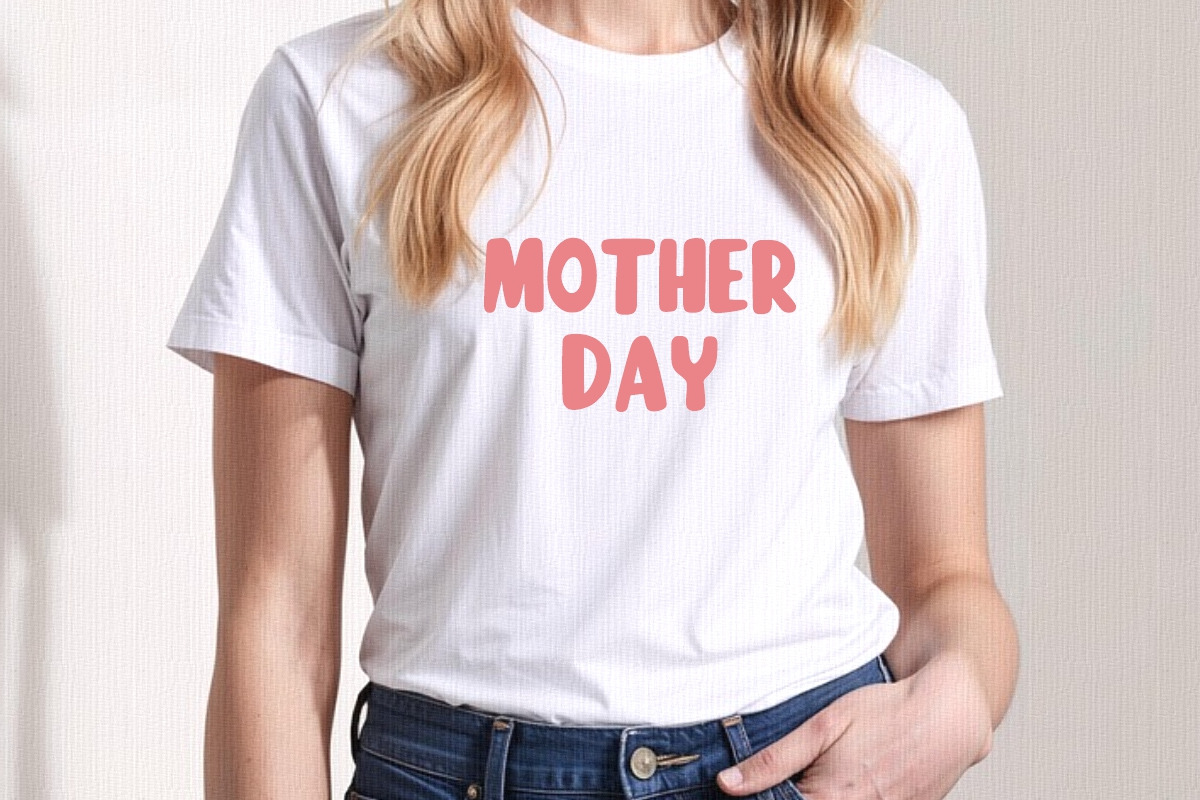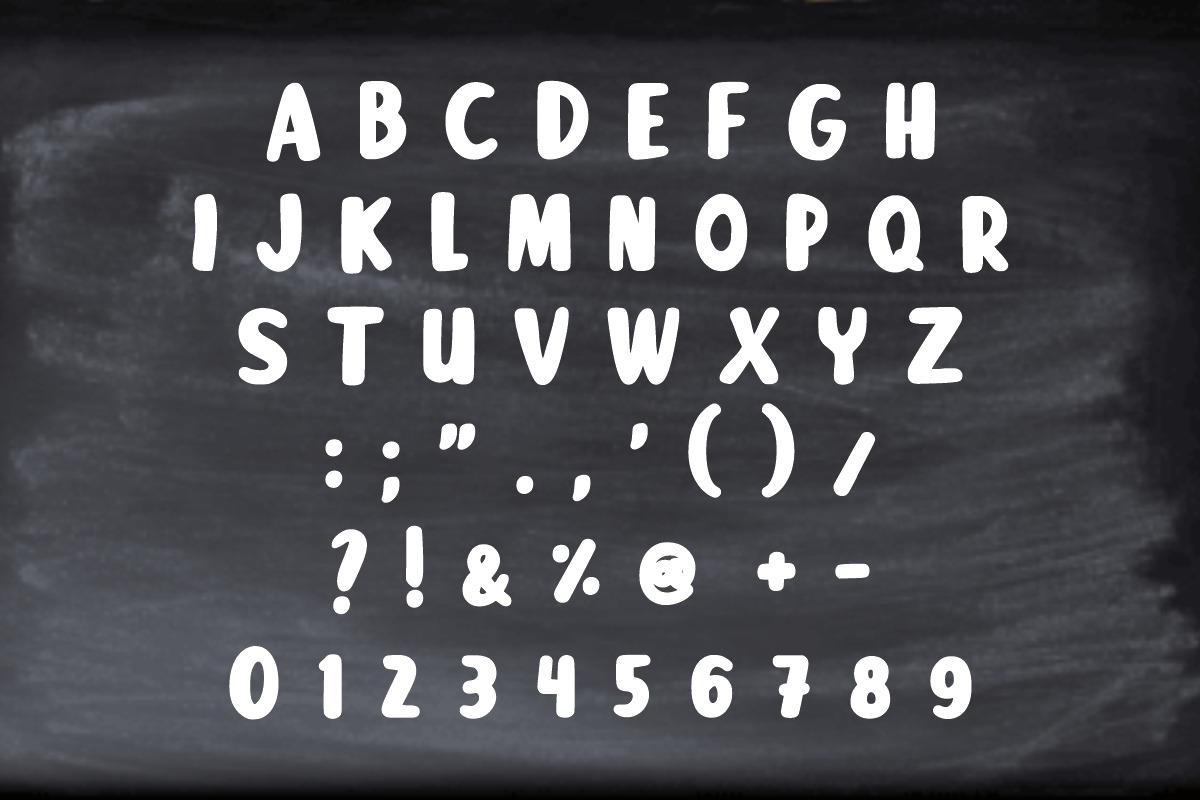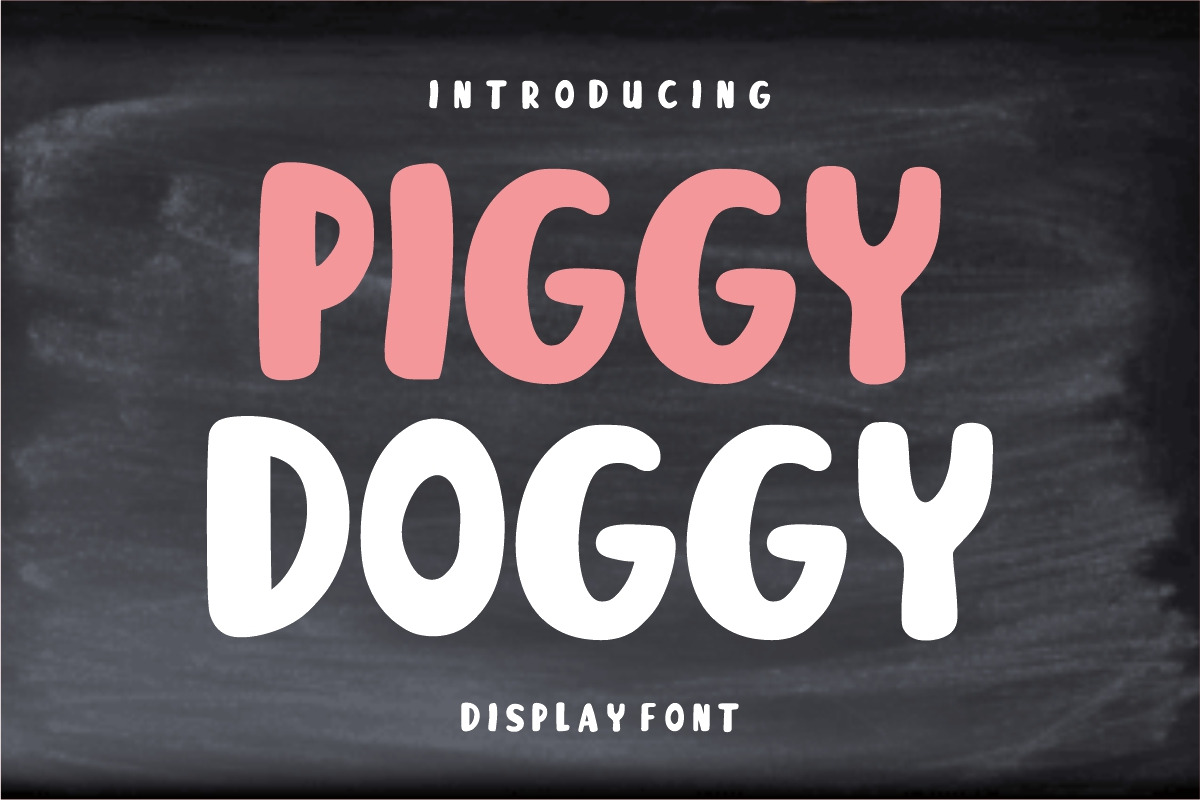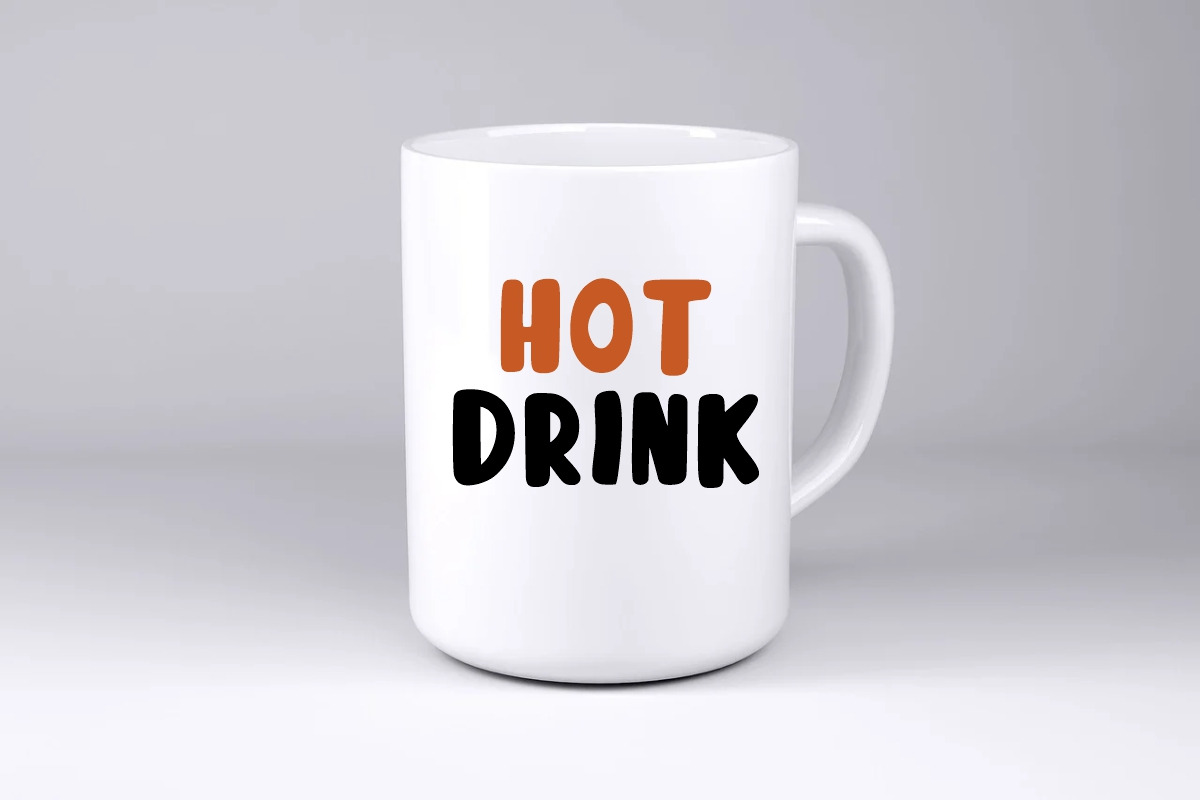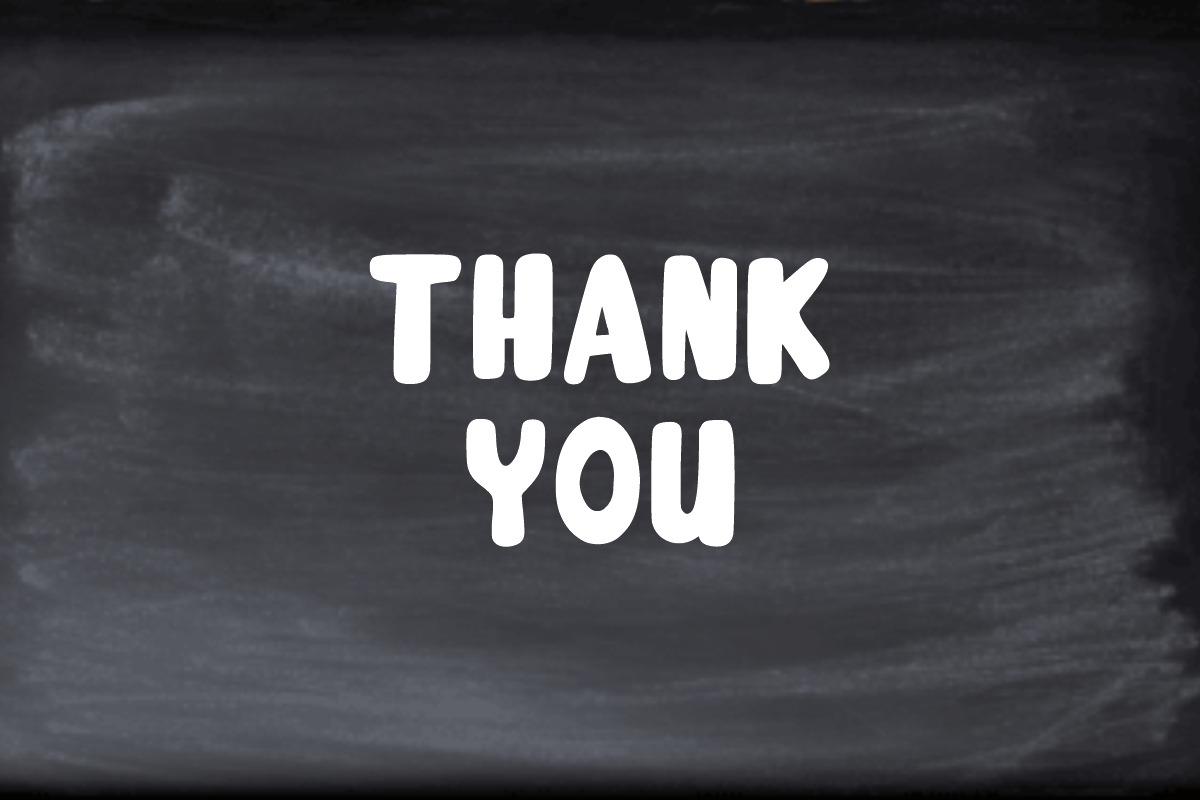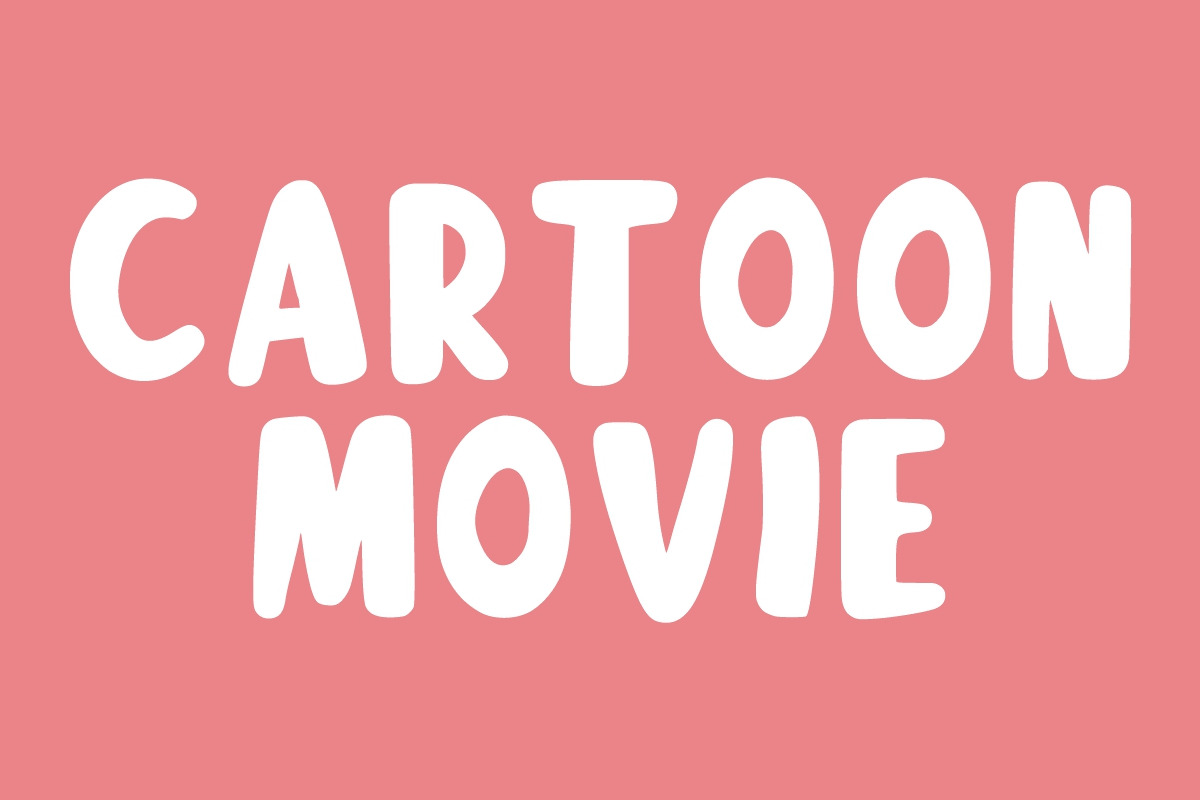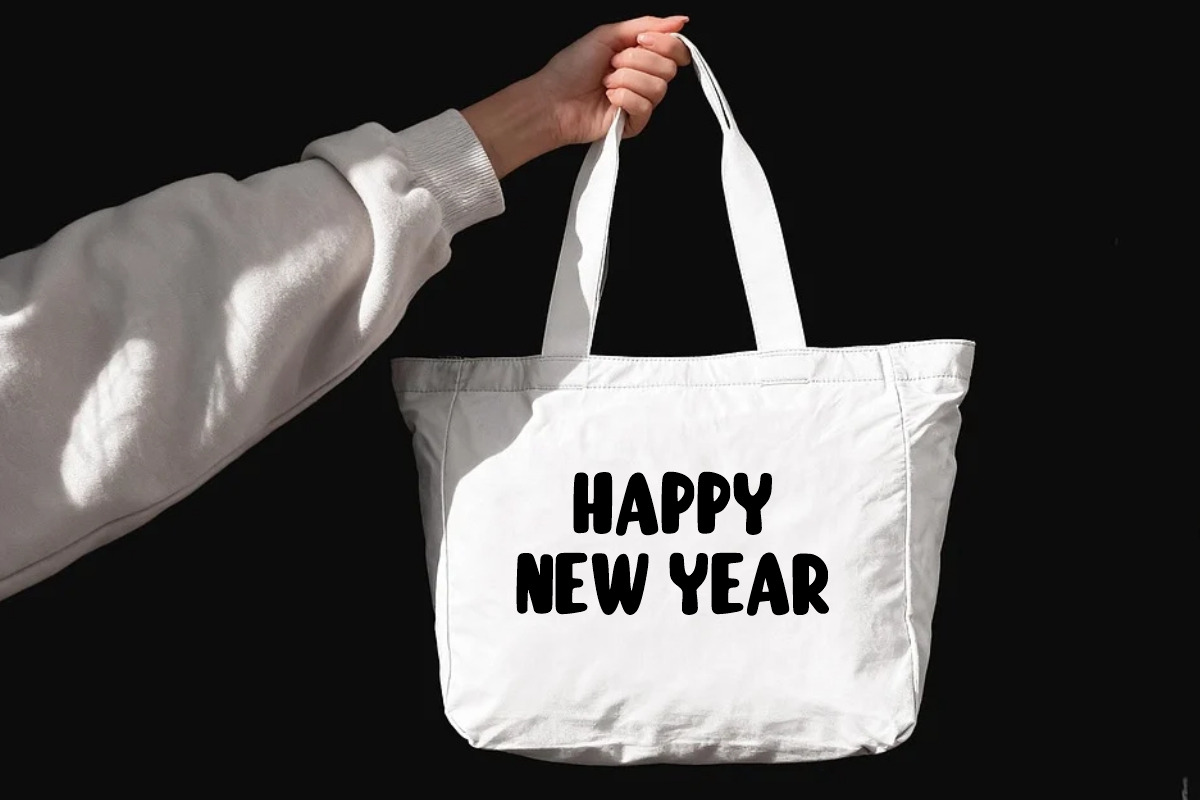
Piggy Doggy cute font
Piggy Doggy is a cute, simple and friendly display font. Its doodle style and cartoon vibe will make this font a go-to choice for each of your creations that require a relaxed touch.
It is suitable for any product packaging, invitation, quote, t-shirt, label, posters, logos that you wish to develop!